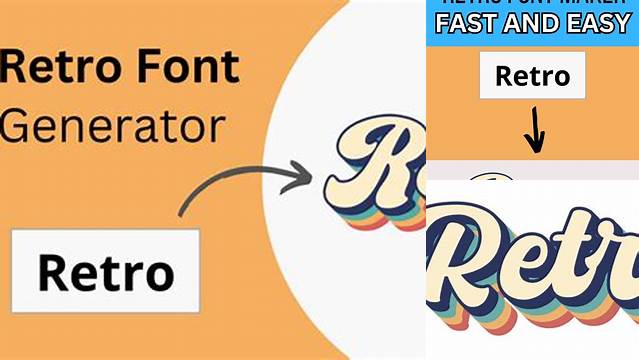
Free Retro Movie Font Generator: Create Vintage Designs
Are you looking to infuse your designs with a touch of vintage Hollywood glamour? Do you want to capture the essence of classic cinema in your projects? If so, you've come to the right place! In this article, we'll delve into the world of retro movie font generators and explore some fantastic free tools that can help you achieve that iconic, nostalgic look. Guys, whether you're working on a movie poster, a social media campaign, or a personal project, the right font can make all the difference. Let's dive in and discover how you can create stunning designs that transport your audience back in time!
What is a Retro Movie Font?
Before we get into the tools, let's first understand what exactly constitutes a retro movie font. These fonts are inspired by the typography used in classic movie posters, title sequences, and promotional materials from the golden age of cinema – think the 1920s to the 1980s. These fonts often evoke a sense of nostalgia, elegance, and drama. They come in various styles, each with its unique charm and character.
- Art Deco Fonts: Inspired by the Art Deco movement of the 1920s and 1930s, these fonts are characterized by their geometric shapes, clean lines, and luxurious feel. They often feature bold, stylized letterforms that exude sophistication and glamour. Imagine the opening credits of a classic film noir – that's the kind of vibe Art Deco fonts bring to the table.
- Script Fonts: Script fonts mimic the fluidity of handwriting and are often used to create a sense of elegance and personal touch. Retro movie script fonts can range from delicate and refined to bold and dramatic, depending on the era and style they're emulating. Think of the flowing signatures in old Hollywood autographs or the romantic titles of classic dramas.
- Sans-Serif Fonts: While sans-serif fonts are often associated with modern design, many classic sans-serif fonts have a distinct retro feel. These fonts are characterized by their clean, minimalist letterforms without the small decorative strokes (serifs) found in serif fonts. Retro sans-serif fonts often have a geometric or industrial quality, reminiscent of mid-century modern design.
- Serif Fonts: Serif fonts, with their small decorative strokes, are often associated with tradition and authority. Retro serif fonts can evoke a sense of classic elegance or vintage charm, depending on their specific style. Think of the iconic fonts used in the posters of epic historical dramas or classic literature adaptations.
- Display Fonts: Display fonts are designed to be eye-catching and attention-grabbing, making them perfect for headlines, titles, and logos. Retro display fonts come in a wide variety of styles, from bold and playful to quirky and eccentric. They often feature unique letterforms and decorative elements that capture the spirit of a particular era or genre.
When choosing a retro movie font, it's important to consider the overall tone and style of your project. What era are you trying to evoke? What kind of mood do you want to create? By carefully selecting the right font, you can add a touch of authenticity and nostalgia to your designs, making them truly stand out. Guys, remember that the font is just one piece of the puzzle – consider the colors, imagery, and overall composition of your design to create a cohesive and impactful visual experience.
Why Use a Retro Movie Font Generator?
So, why should you use a retro movie font generator instead of just searching for fonts online? Well, these generators offer several advantages that can save you time and effort, while also sparking your creativity:
- Ease of Use: Most retro movie font generators are incredibly user-friendly. You simply type in your text, choose your desired font style, and the generator will create an image or downloadable file of your text in that font. This is much faster and easier than manually searching for and installing individual fonts.
- Experimentation: Generators allow you to quickly experiment with different fonts and styles to see what works best for your project. You can try out various combinations and variations without having to install multiple fonts on your computer. This makes the design process more efficient and allows you to explore different creative possibilities.
- Inspiration: Sometimes, all you need is a little inspiration to get your creative juices flowing. Retro movie font generators can help you discover new fonts and styles that you might not have otherwise considered. By browsing through the different options, you can gain a better understanding of the various retro font styles and how they can be used effectively.
- Customization: Some retro movie font generators offer customization options, allowing you to adjust the size, color, spacing, and other attributes of your text. This gives you even more control over the final result and allows you to create truly unique designs. You can fine-tune the font to perfectly match your project's aesthetic.
- Free Options: The best part? Many fantastic retro movie font generators are available for free! This means you can create stunning designs without spending a dime. Free tools make it accessible for everyone, from hobbyists to professional designers, to tap into the world of retro typography and enhance their projects.
1. Font Meme
Font Meme is a popular website that offers a vast collection of fonts, including a dedicated section for movie fonts. It also features a handy font generator that allows you to create images of your text in various retro styles. Here's what makes Font Meme stand out:
- Extensive Font Library: Font Meme boasts an impressive library of fonts, including many that are reminiscent of classic movie posters and title sequences. You can browse through different categories, such as